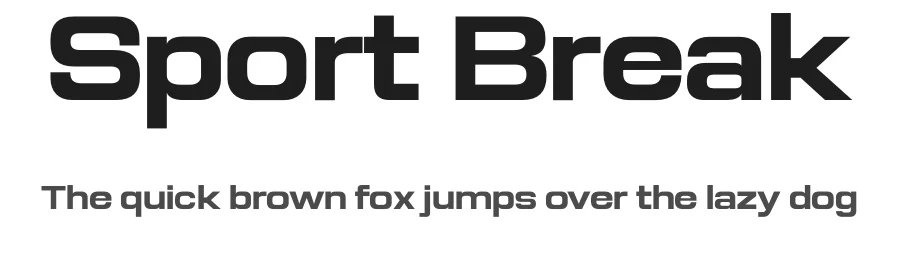
About Super Quick Formula Font
Super Quick Formula is a sans-serif font designed by imagex. It includes 97 glyphs, a regular weight, and TTF (TrueType) format. Super Quick Formula is free to download; check the license details on this page before commercial use. Sans-serif fonts like Super Quick Formula work best for clean body text, user interfaces, branding, and modern layouts.
Super Quick Formula Font is a versatile sans-serif font that works for both headings and body text. Pair it with a contrasting serif or slab serif font to add visual interest and a clear distinction between titles and body copy.